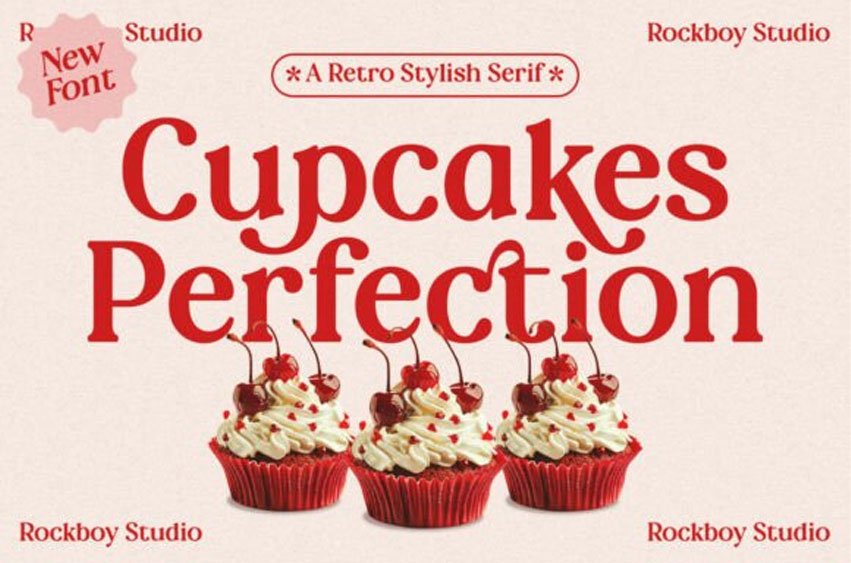
Cupcake Perfection Font is a retro-stylish serif that brings a touch of nostalgic charm to any design. Inspired by vintage bakery signage, it features playful curves and warm details—ideal for branding, packaging, editorial layouts, and beyond. Complete with uppercase, lowercase, numerals, punctuation, and multilingual support, Cupcakes Perfection also includes alternates and ligatures to help you create unique typographic statements. Give your next project a delightful, sweet flair with the timeless appeal of Cupcakes Perfection.